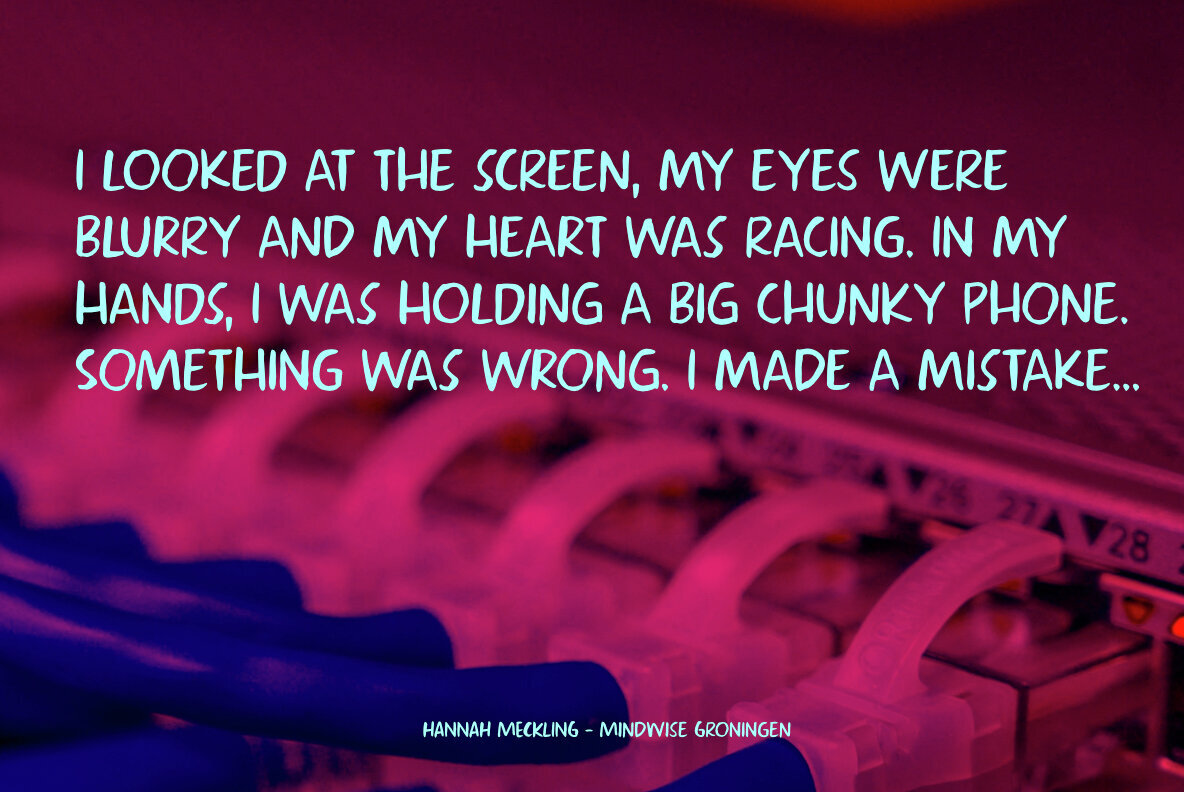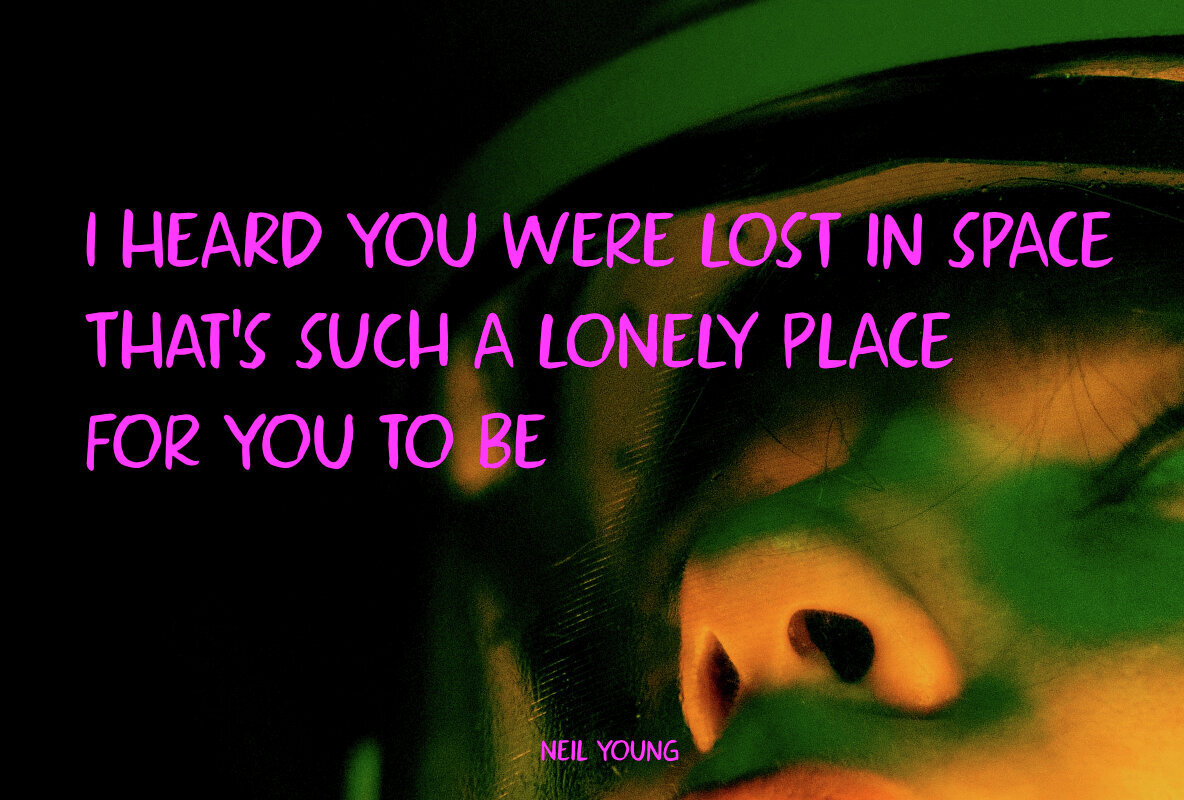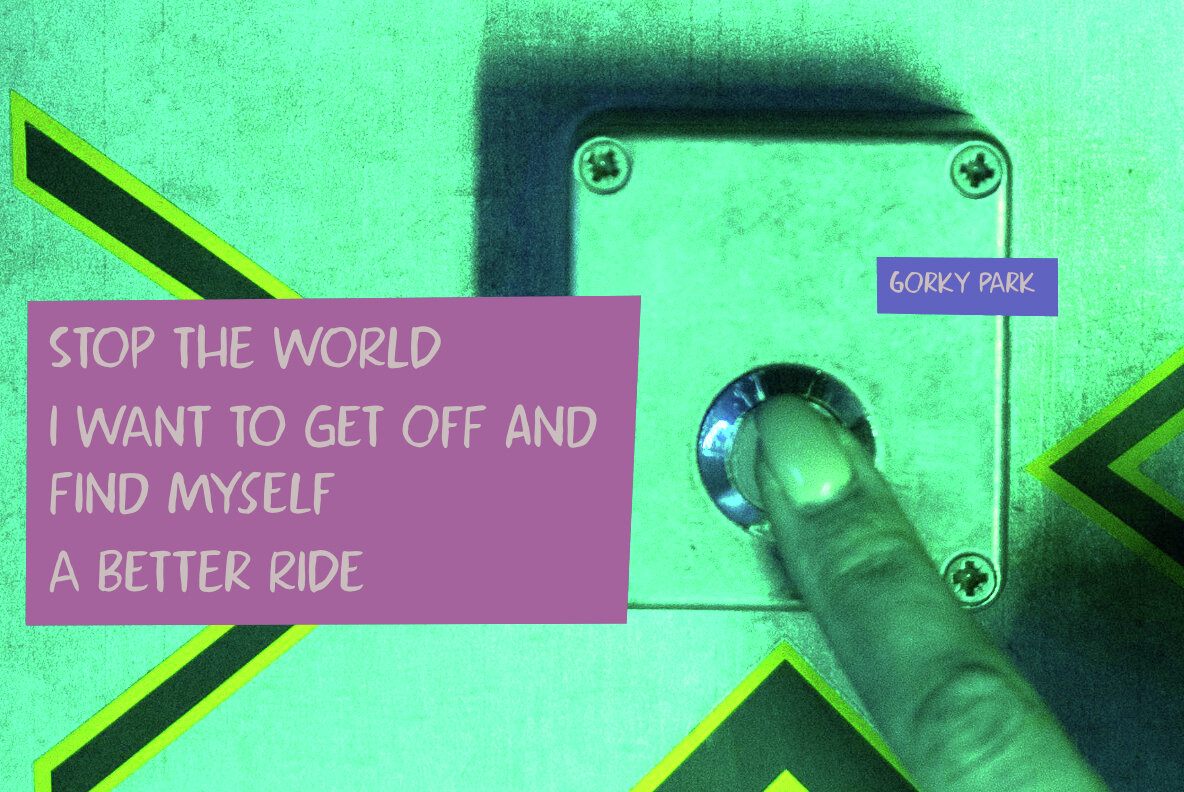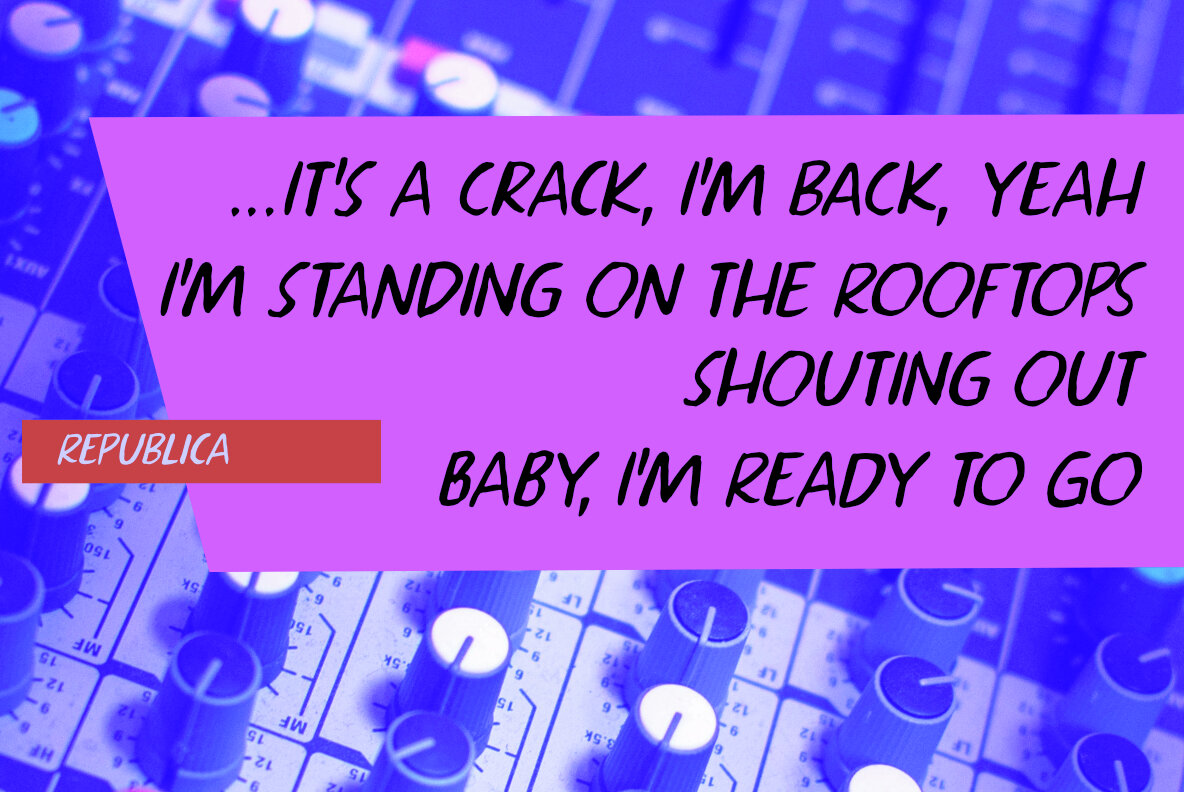
Safety Switch Font
Safety Switch Regular
Safety Switch Italic
I am not entirely sure why I called this font Safety Switch. Maybe it is because I am renovating a ’30’s house and the Safety Switch has kept me from harm a couple of times! Safety Switch is a nice, handmade font. It was created using a thin brush and Chinese ink. It comes with extensive language support and a set of contextual alternates.